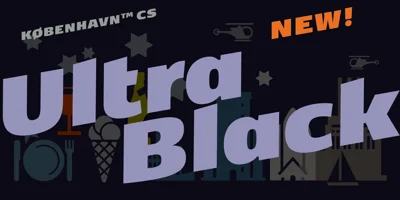
København CS Font
København CS Font is ideal for Scandinavian design projects including Nordic lifestyle branding, Danish furniture company logos, Copenhagen tourism materials, hygge-inspired marketing campaigns, minimalist restaurant menus, sustainable design publications, Nordic fashion labels, and contemporary European cultural events. This sophisticated typeface works perfectly for design studios, Scandinavian architecture firms, clean beauty brands, and projects celebrating Nordic aesthetics and Danish design philosophy.
What makes København CS Font exciting is its refined Scandinavian character that perfectly captures the essence of Danish design excellence and Nordic minimalism. The font features clean, purposeful letterforms with understated elegance that reflects the functional beauty and sustainable principles of Scandinavian design culture. Its harmonious design elements embody the hygge philosophy of comfort and contentment, making it perfect for projects that need to convey sophistication, sustainability, and timeless Nordic appeal. The carefully balanced proportions create a sense of calm elegance and democratic accessibility.
København CS Font comes in multiple family variations including ultra-light, light, regular, medium, bold, and black weights. Each style maintains the distinctive Nordic character while offering different levels of visual presence and Scandinavian sophistication. The font family includes Danish-inspired alternates, hygge ligatures, and minimalist variations that provide designers with comprehensive options for creating truly authentic and culturally resonant Nordic typographic expressions.